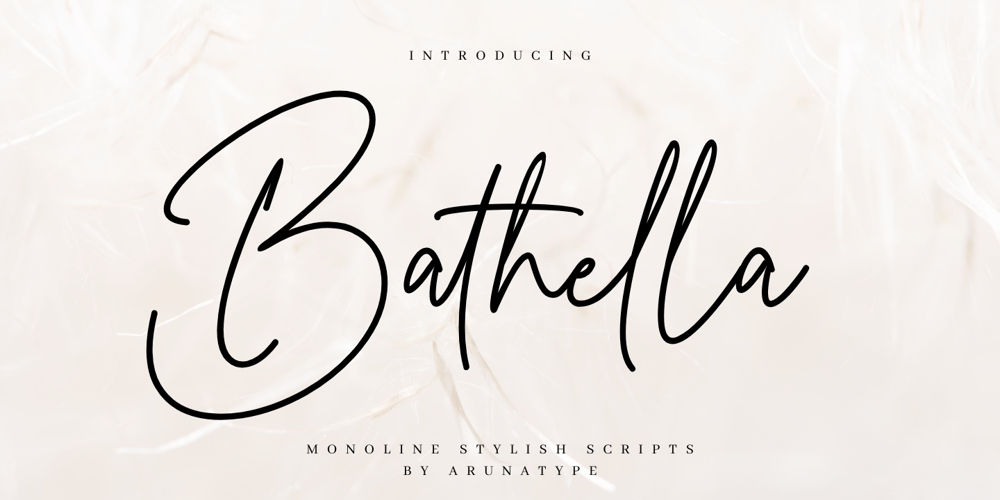
Bathella Font Family was designed by Yudi Safiyudin and published by Arunatype. Bathella contains 1 styles and family package options. Bathella script is the perfect font choice for businesses that want to convey an image of elegance, luxury, and style. The font’s smooth and fluid lines create a sophisticated and refined appearance, making it ideal for high-end branding and marketing materials. Bathella script’s exquisite details and graceful curves make it a favorite among designers who seek to create an impression of exclusivity and class. Whether used in logos, invitations, or advertisements, Bathella script is sure to leave a lasting impression of quality and luxury.